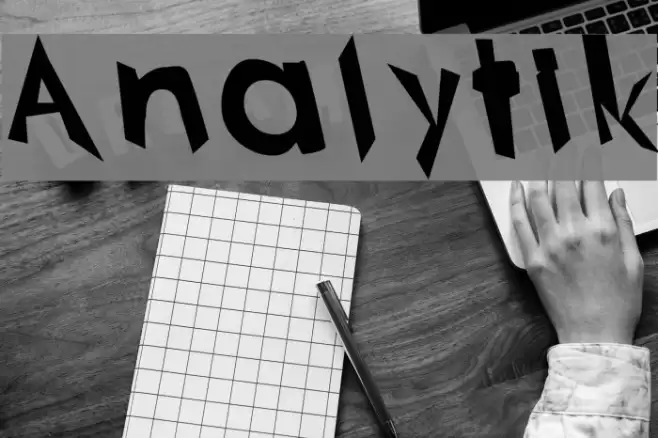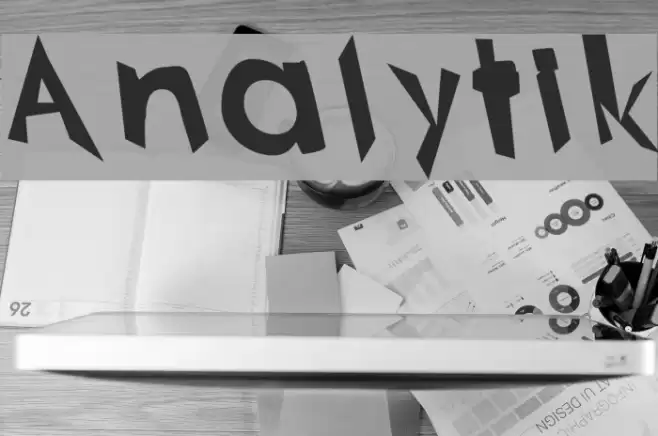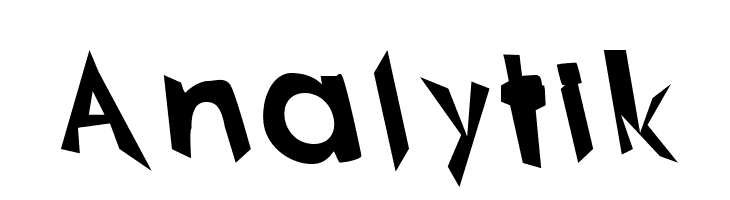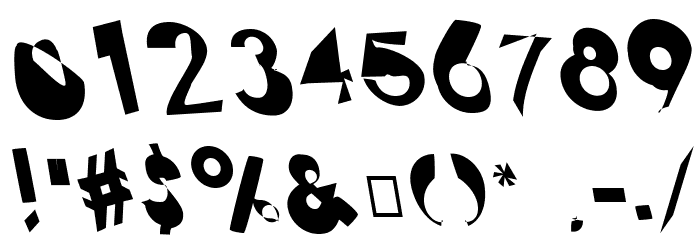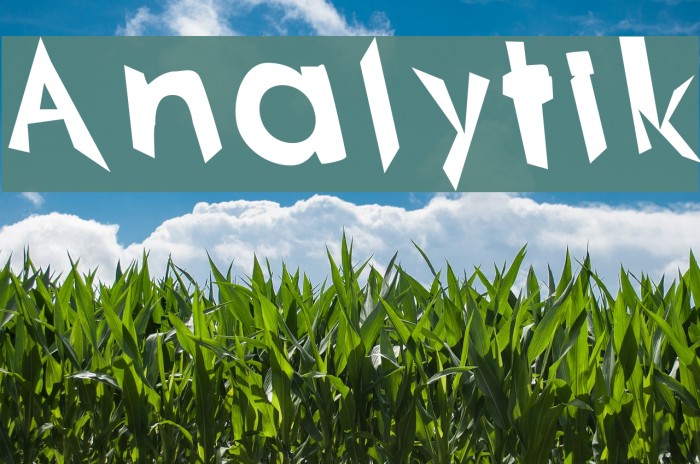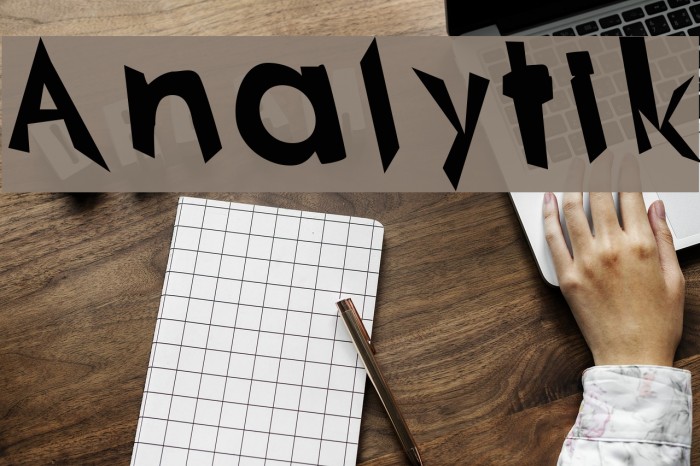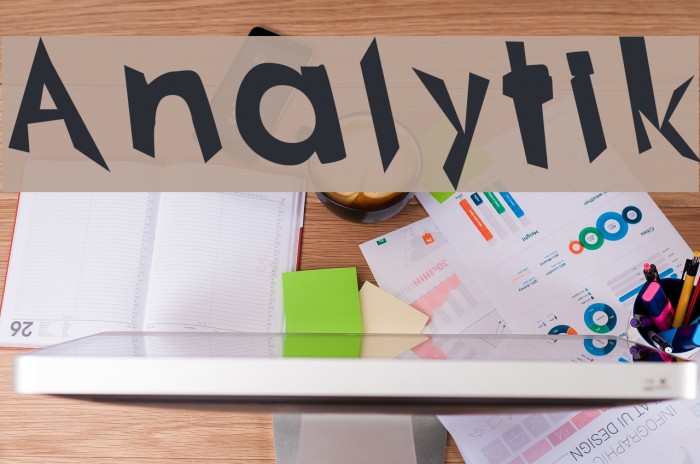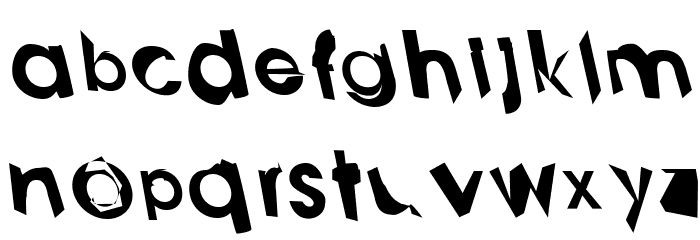
Analytik Font
Analytik Description
This font features a bold and dynamic design with a distinctly modern and artistic flair. Each character is uniquely crafted with irregular shapes and angles, giving it a playful and unconventional appearance. The font's style is reminiscent of cut-out paper or collage art, with a sense of movement and energy. It includes both uppercase and lowercase letters, numbers, and a variety of special characters. The overall look is striking and eye-catching, making it ideal for creative and bold design projects.
A bold, artistic font with irregular shapes and a modern flair from Distorted Eroded fonts.
- Proposed Projects: Ideal for posters, album covers, branding, and any project requiring a bold, artistic touch.
- Overall Style: Modern, Artistic